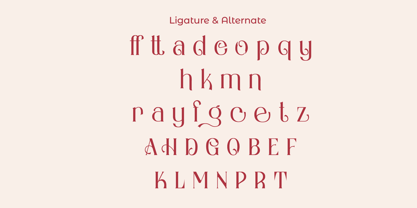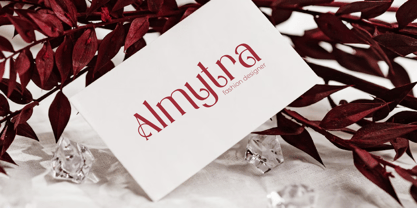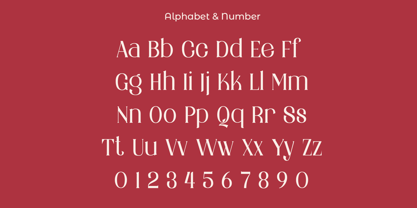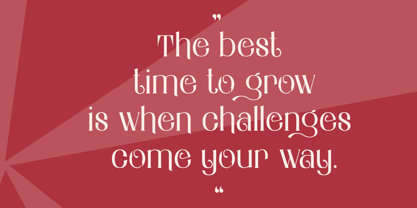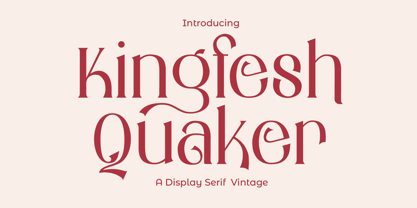
Kingfesh Quaker
by Risma Type
Kingfest Quaker – Vintage Display Serif
Kingfest Quaker is a vintage display serif font crafted to capture timeless charm and bold sophistication. With its character-rich letterforms and nostalgic flair, it blends old-world elegance with a spirited presence — perfect for projects that demand authenticity and impact. Whether for branding, editorial headlines, packaging, or identity design, Kingfest Quaker adds a distinguished touch.
Thoughtfully designed for strong readability and artistic expression, Kingfest Quaker brings a sense of heritage to modern applications. Its bold vintage style ensures your designs stand out with authority, making it an essential font for those who seek to balance tradition and creativity.
Key Features
• Vintage-inspired bold serif display style
• Multiple style options for versatile design needs
• Ideal for branding, editorial, packaging, and statement pieces
• Supports multiple languages for global reach
• Designed to create a memorable, authentic visual impact
Kingfest Quaker infuses your typography with timeless spirit and crafted strength — a true celebration of vintage artistry and bold storytelling.